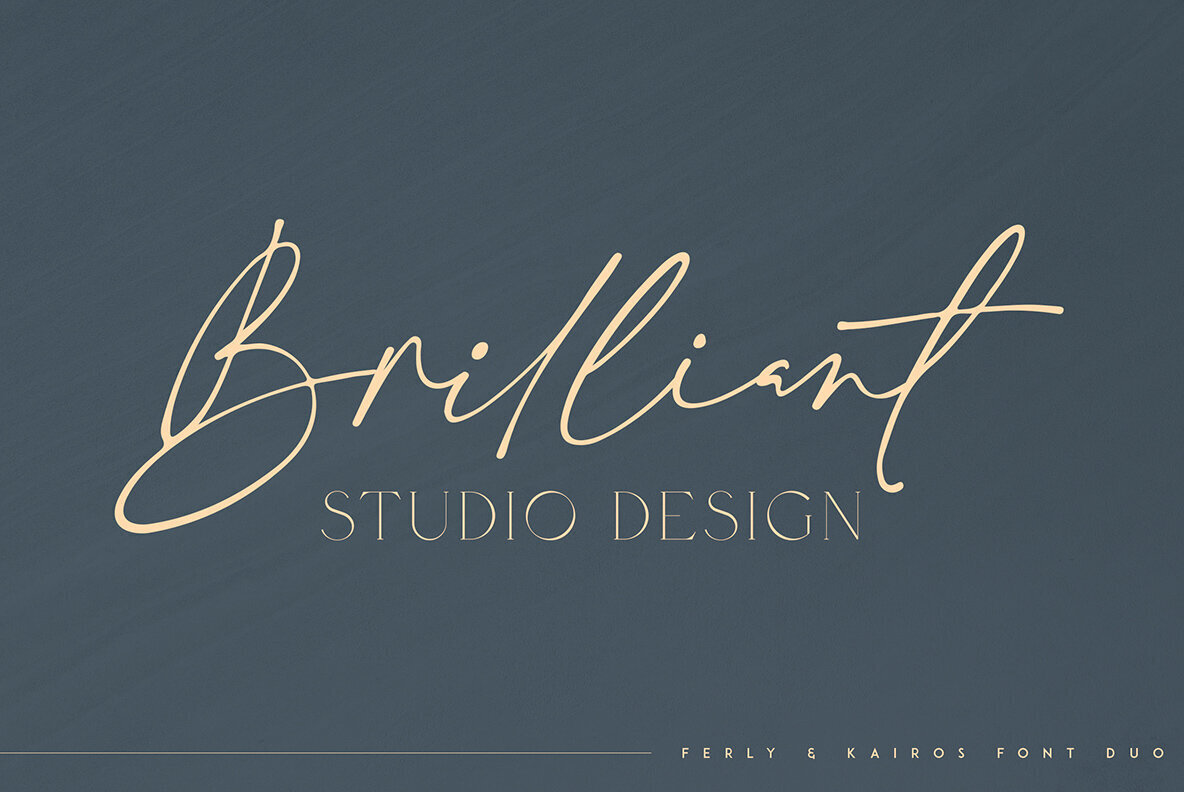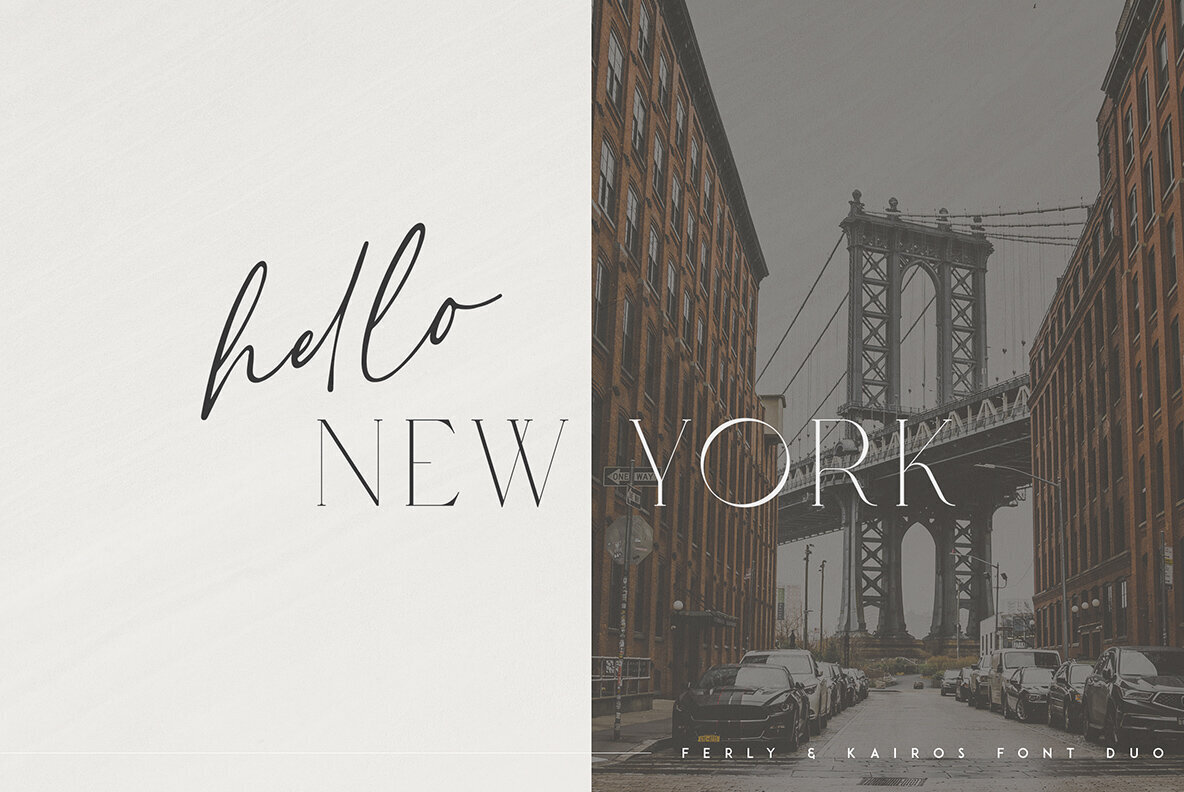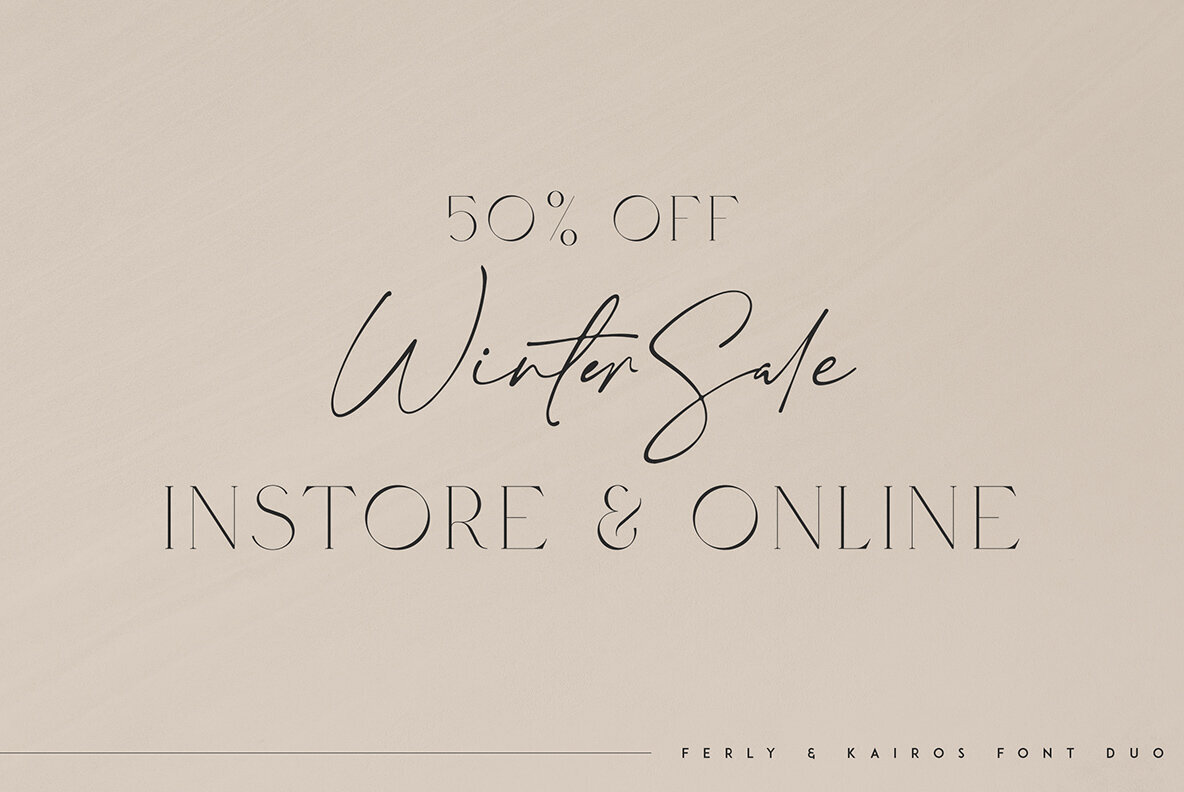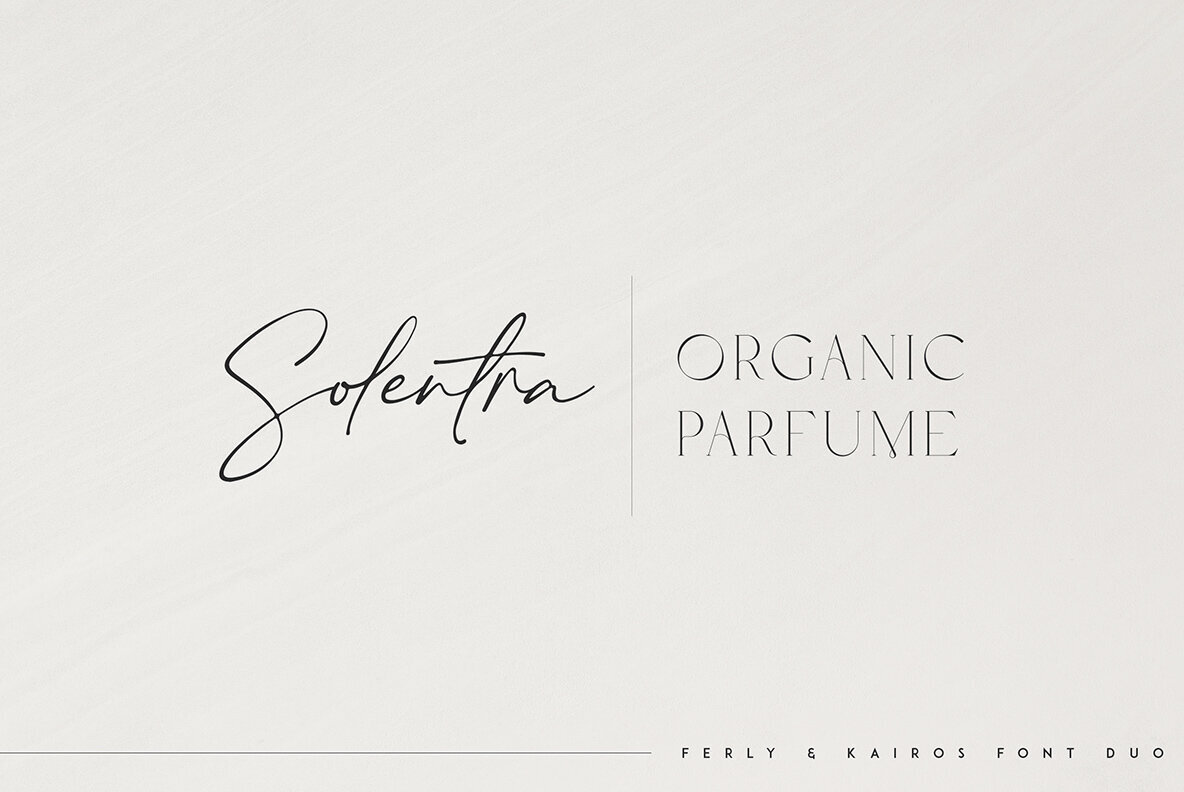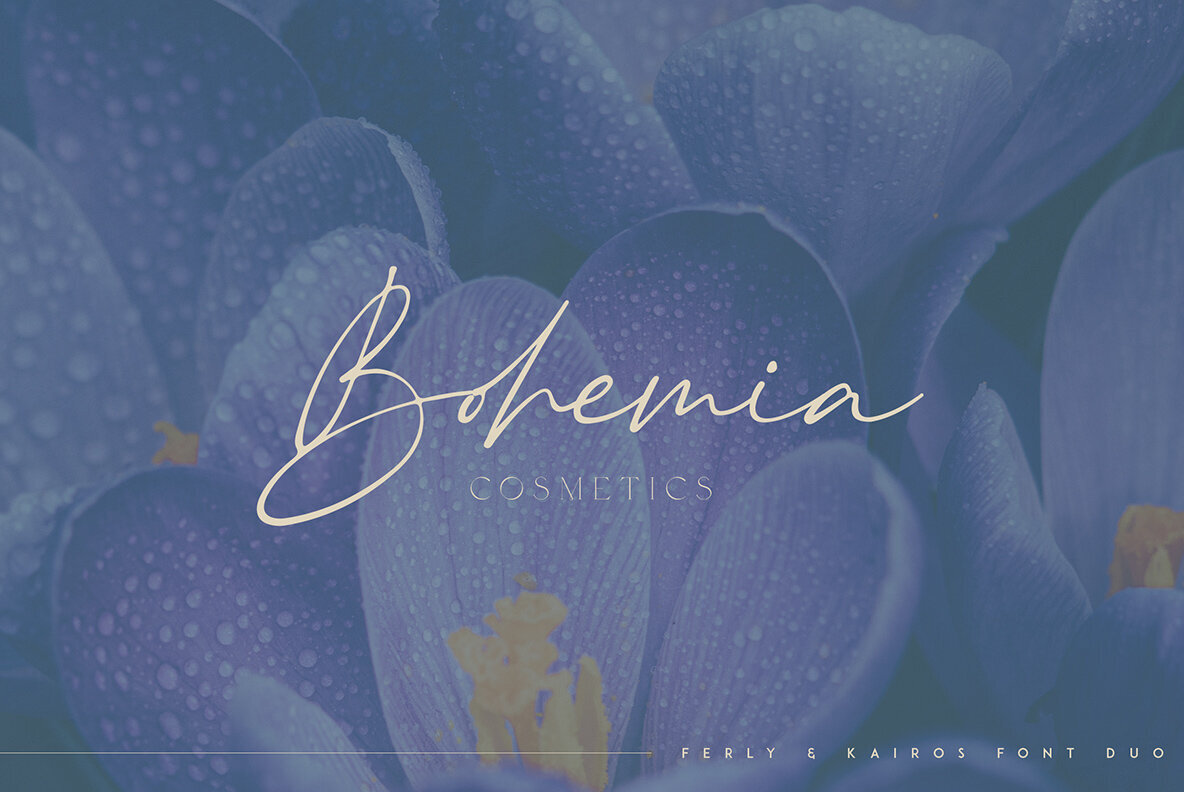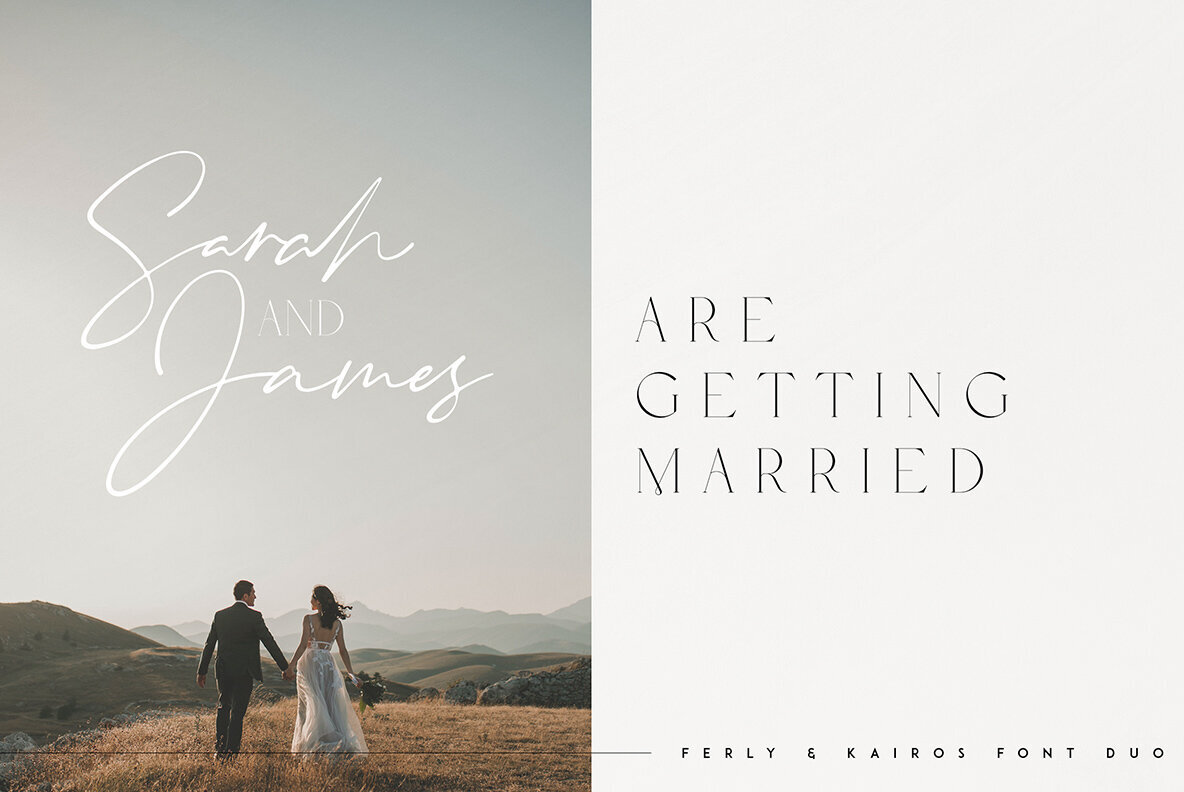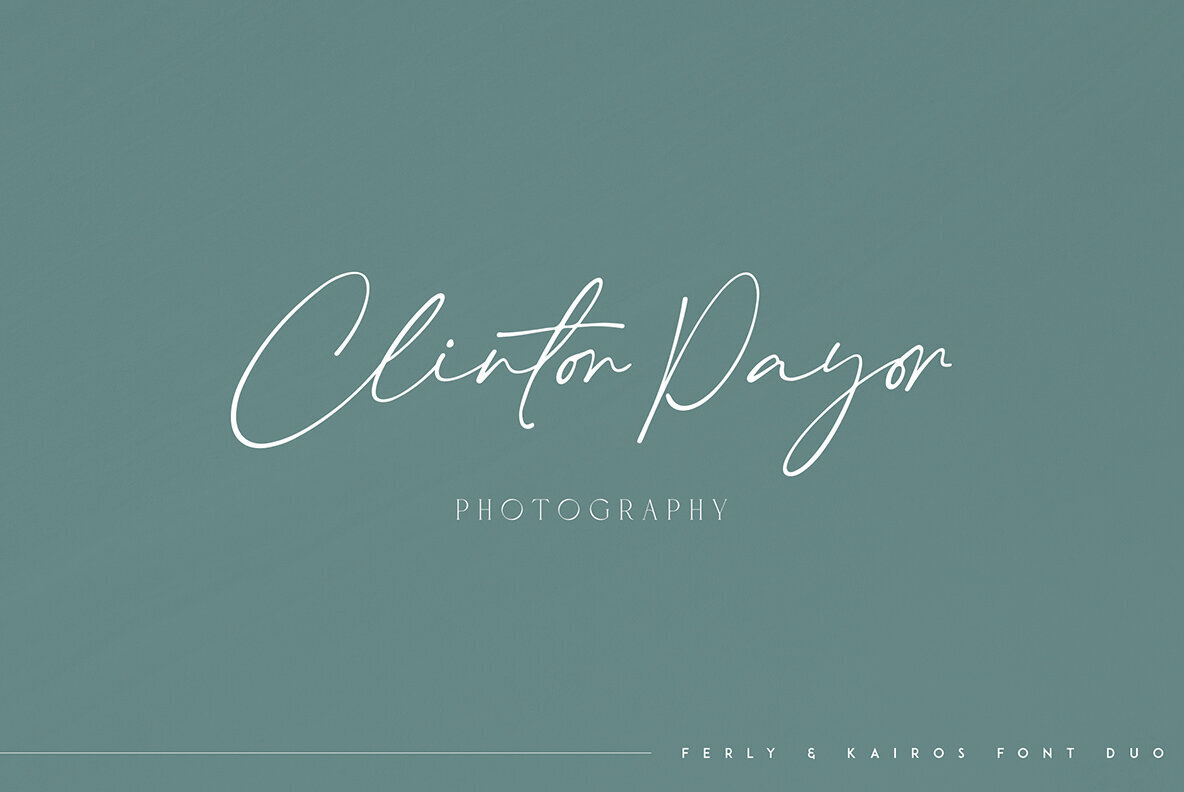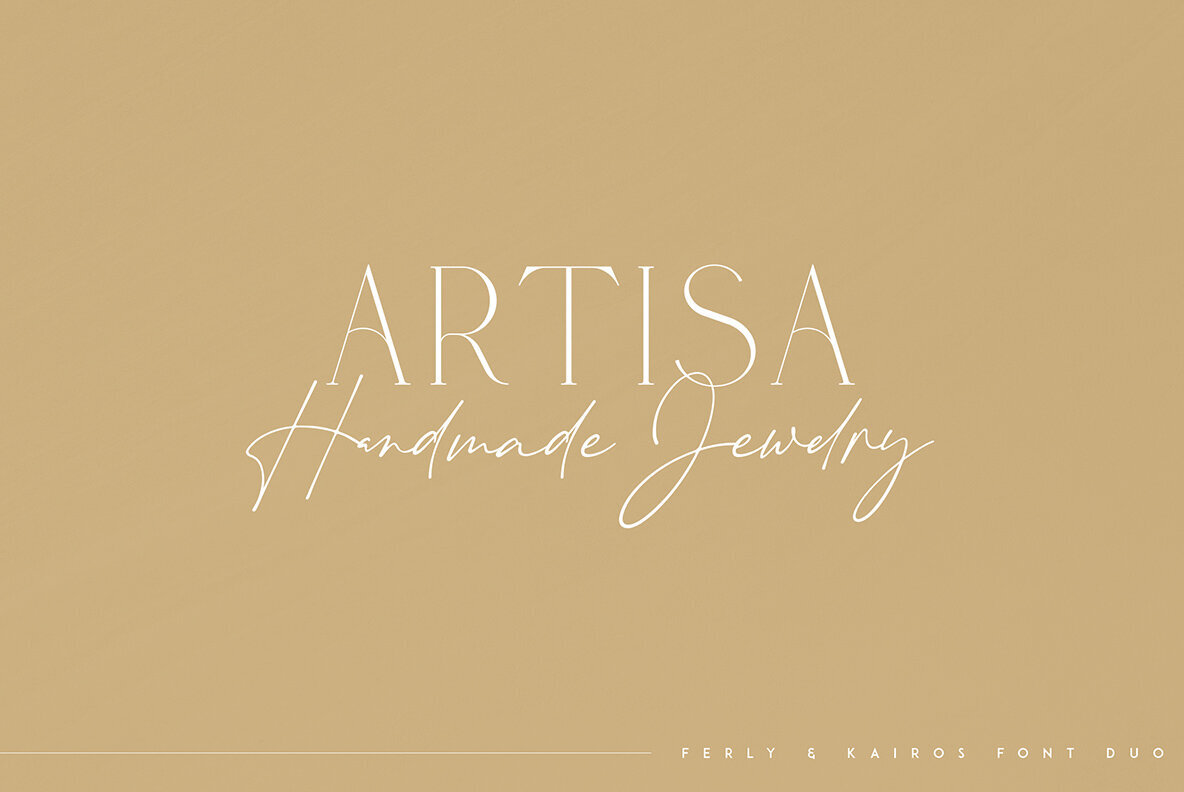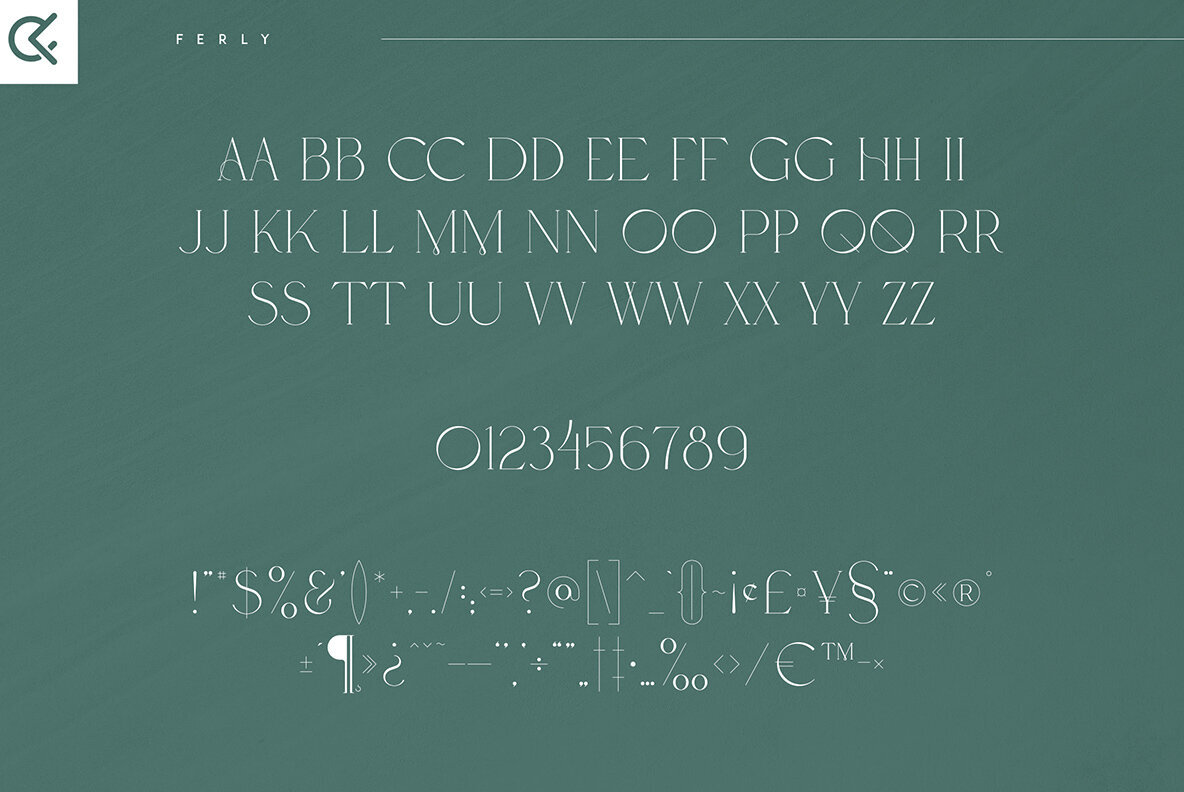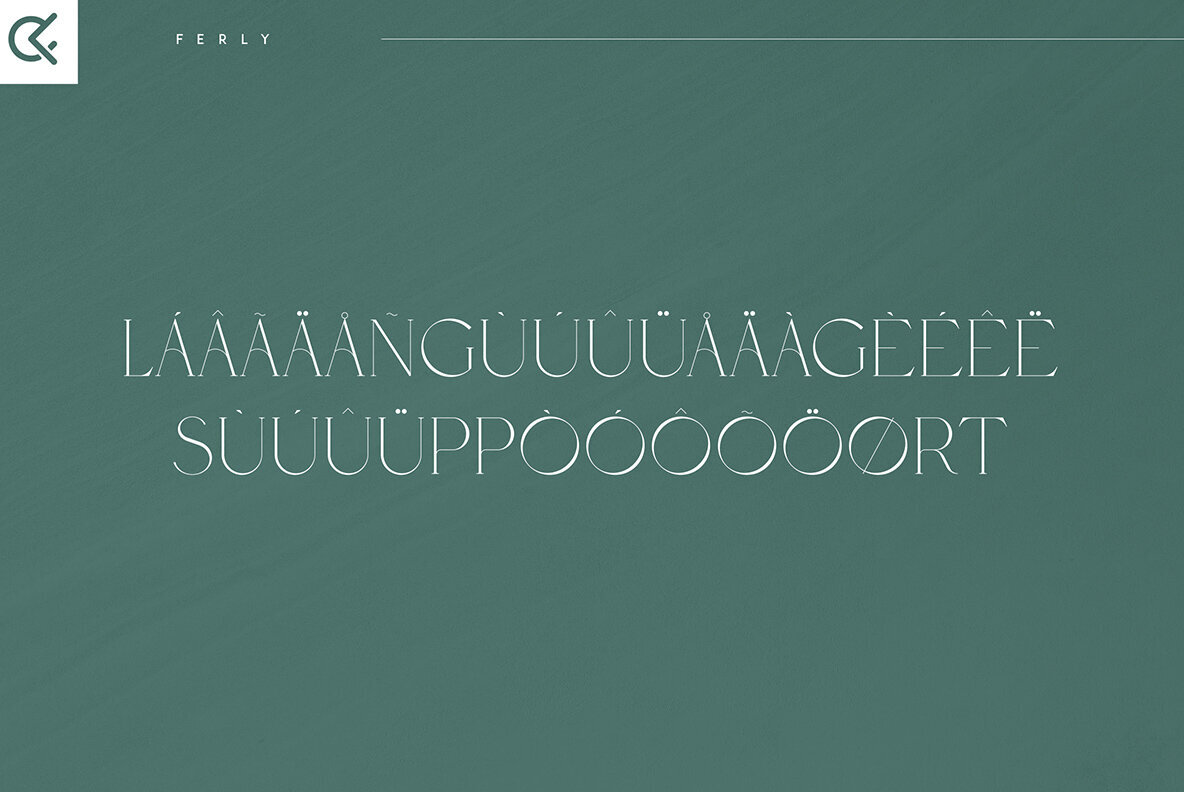
Ferly and Kairos Font
Ferly Regular
Kairos Regular
Ferly & Kairos font duo brings together the elegance of luxury and the delicacy of a fragile design, offering multilingual support for a wide range of applications. This versatile font excels in both large and small sizes, making it an ideal choice for branding projects, home-ware designs, product packaging, magazine headers, or simply as a stylish text overlay on any background image. Key features include uppercase, numeral, punctuation, and symbol characters, a serif style, handwritten script, and multilingual support. No special software is required to type out the standard characters of the Typeface, and it is Canva friendly for added convenience.